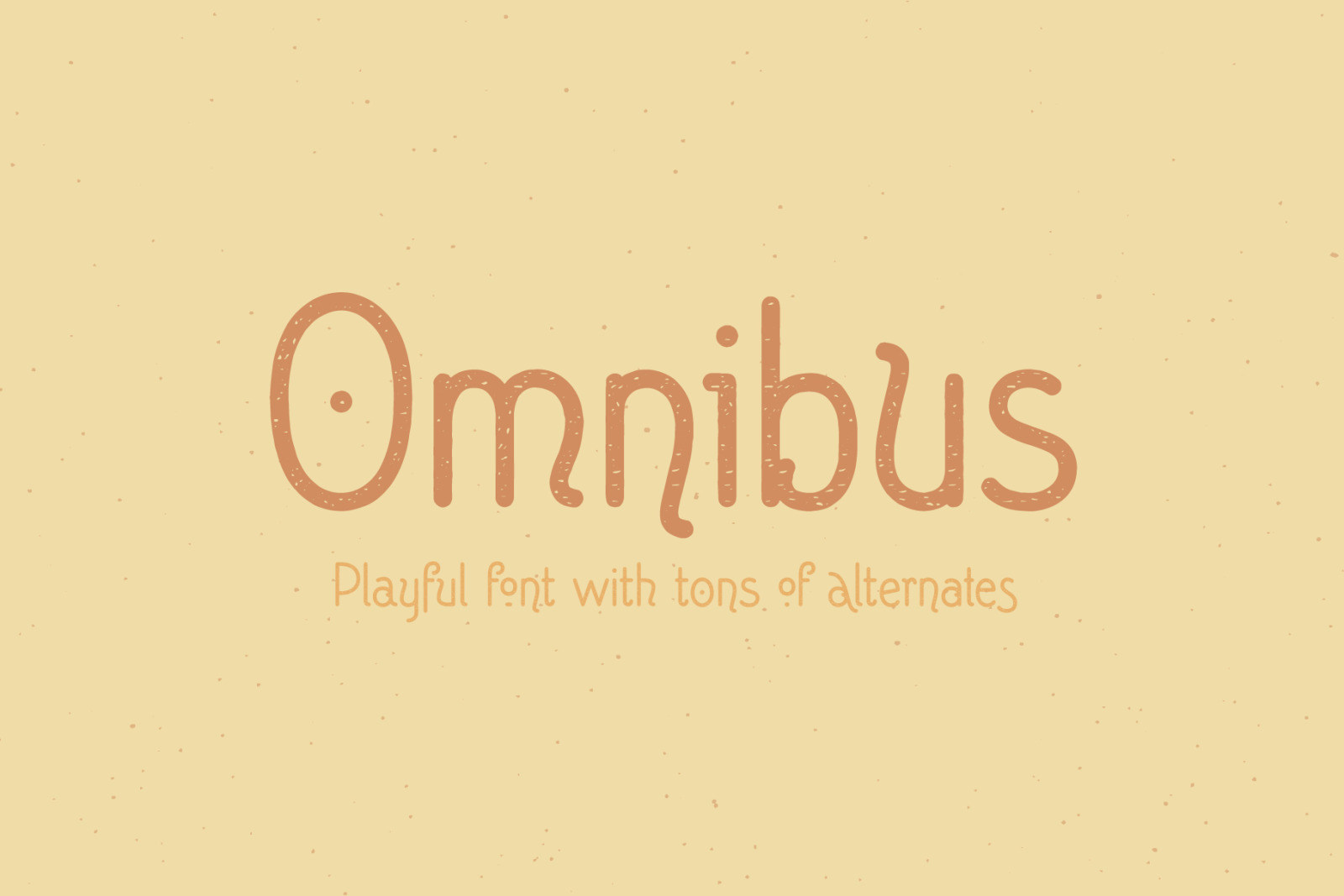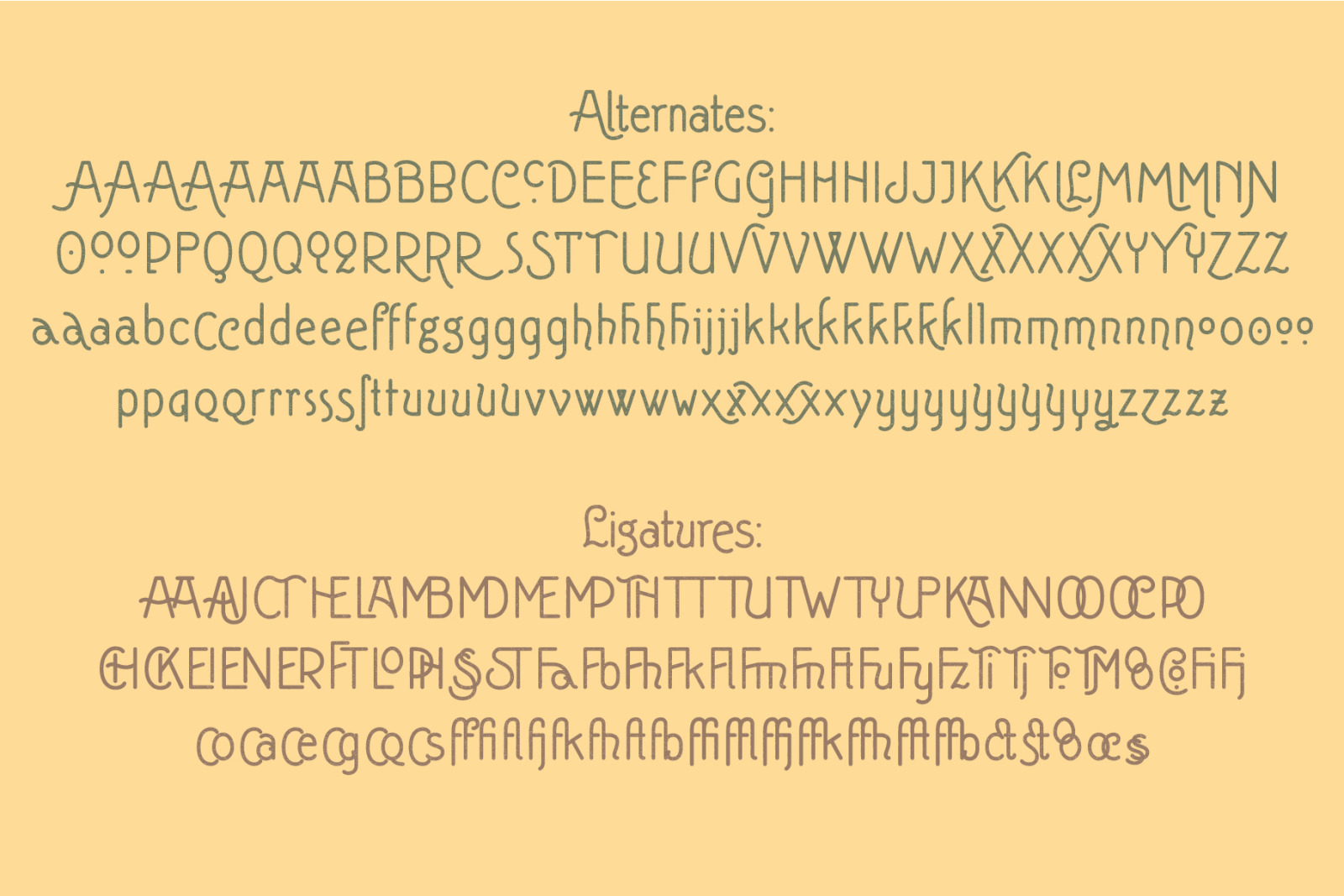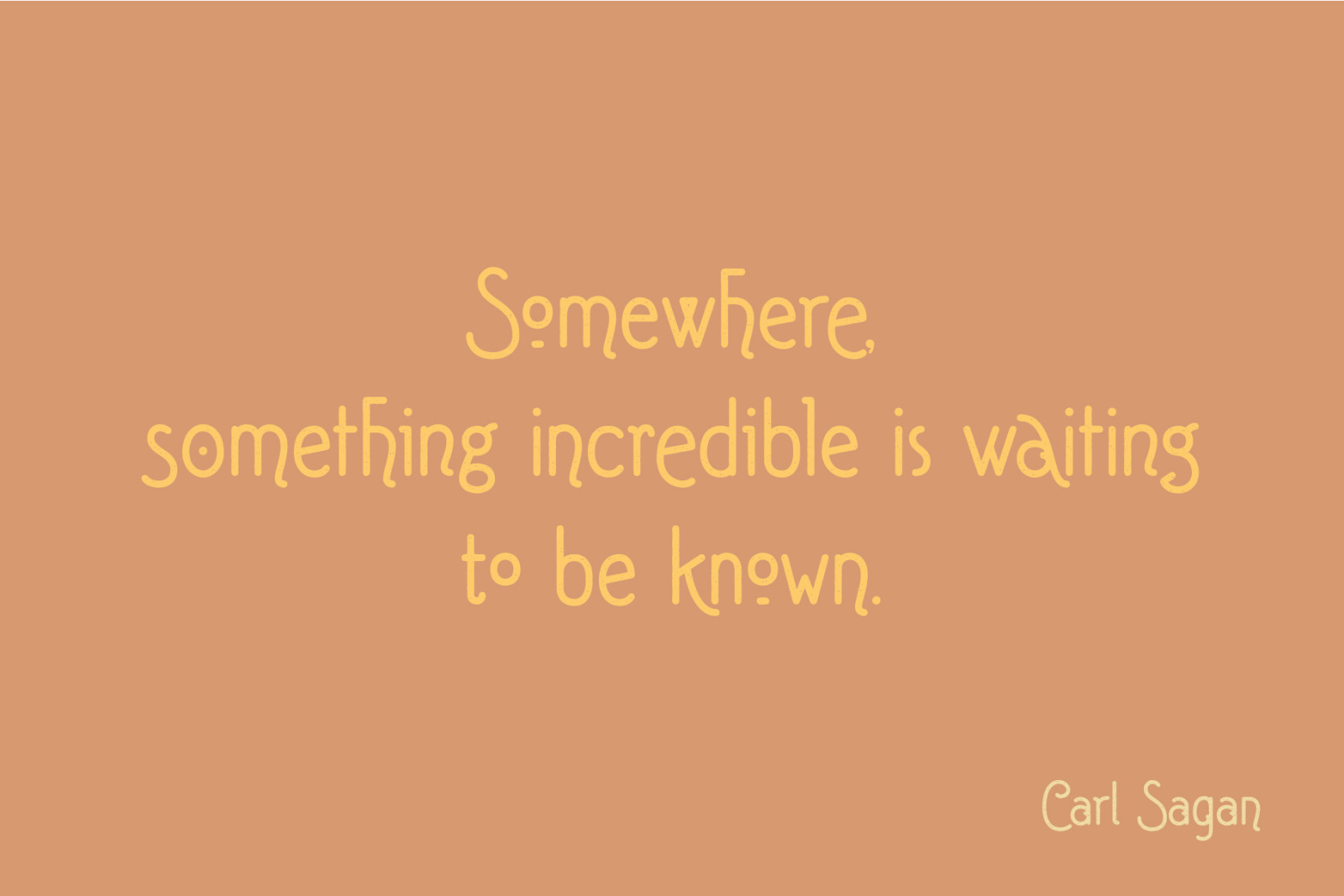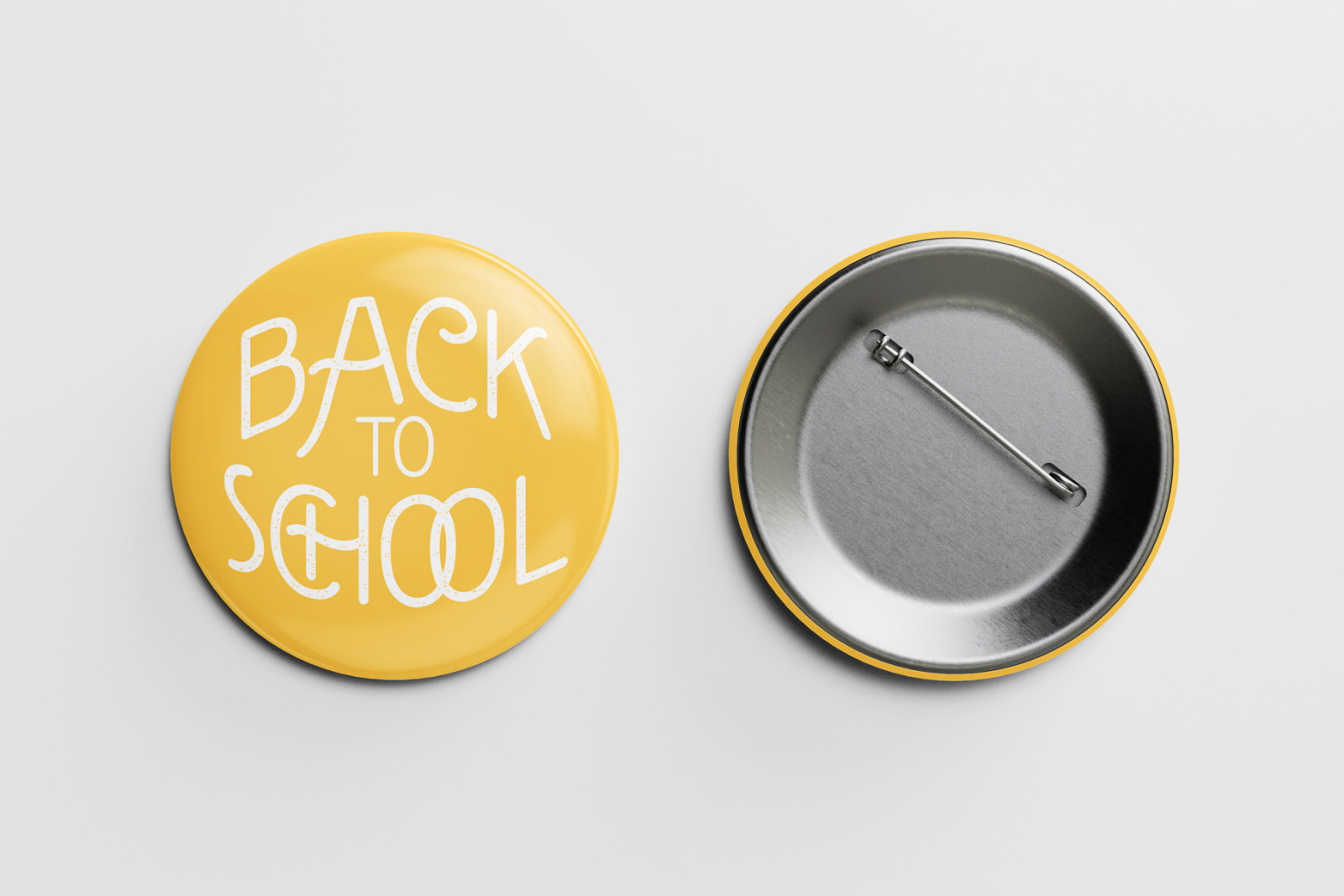
Omnibus Font
Omnibus is a modern playful sans with tons of alternates and ligatures. At the beginning, Omnibus was supposed to be a slightly different type of font, but during the design phase the concept changed - the designed font had greater potential and this is how Omnibus was created :)
Omnibus is great for brandings, fun projects, posters, covers and more. Enjoy!